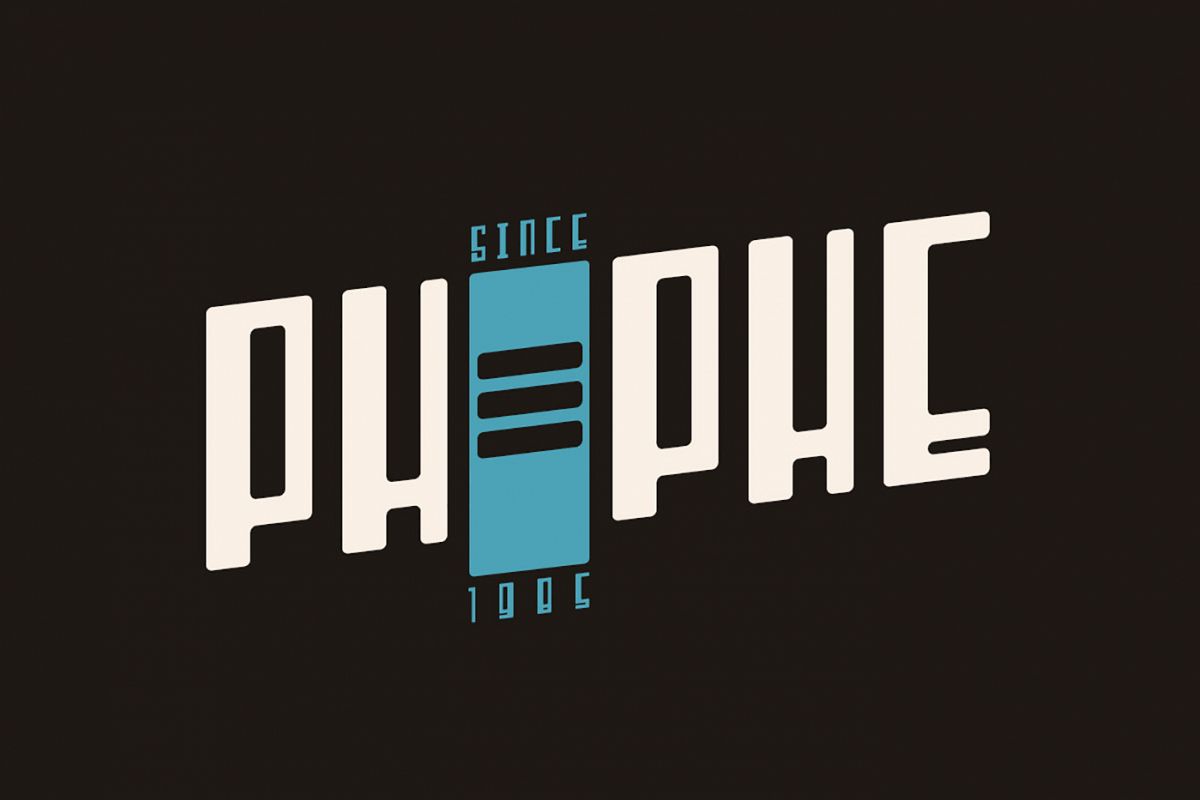
Phephe
Phephe is a fun and vintage font, to simulate your lovely design. Perfect for many different projects: quotes, blog header, poster, wedding, branding, logo, fashion, apparel, letter, invitation, stationery, etc.
Weight: Light and Bold